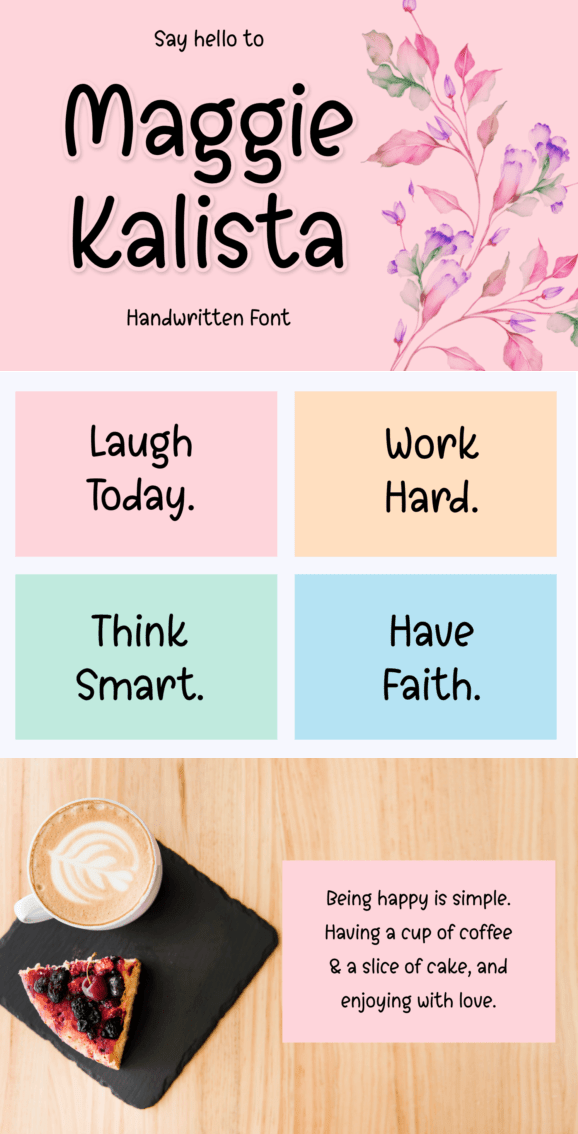
Discover the delightful charm of Maggie Kalista, a hand-sketched font that breathes sweetness onto your creations. It’s been infused with an irresistible minimalist whimsy, making it the secret ingredient for crafting an enchanting aura. Maggie Kalista’s simplicity allows it to blend seamlessly across a range of applications. From heartwarming invitations to personalized cards, from casual school notes to quirky to-do-lists, this font empowers your creativity to take flight. Designed with love, Maggie Kalista infuses your projects with a playful spirit and a handcrafted allure that’s as endearing as it is unforgettable.